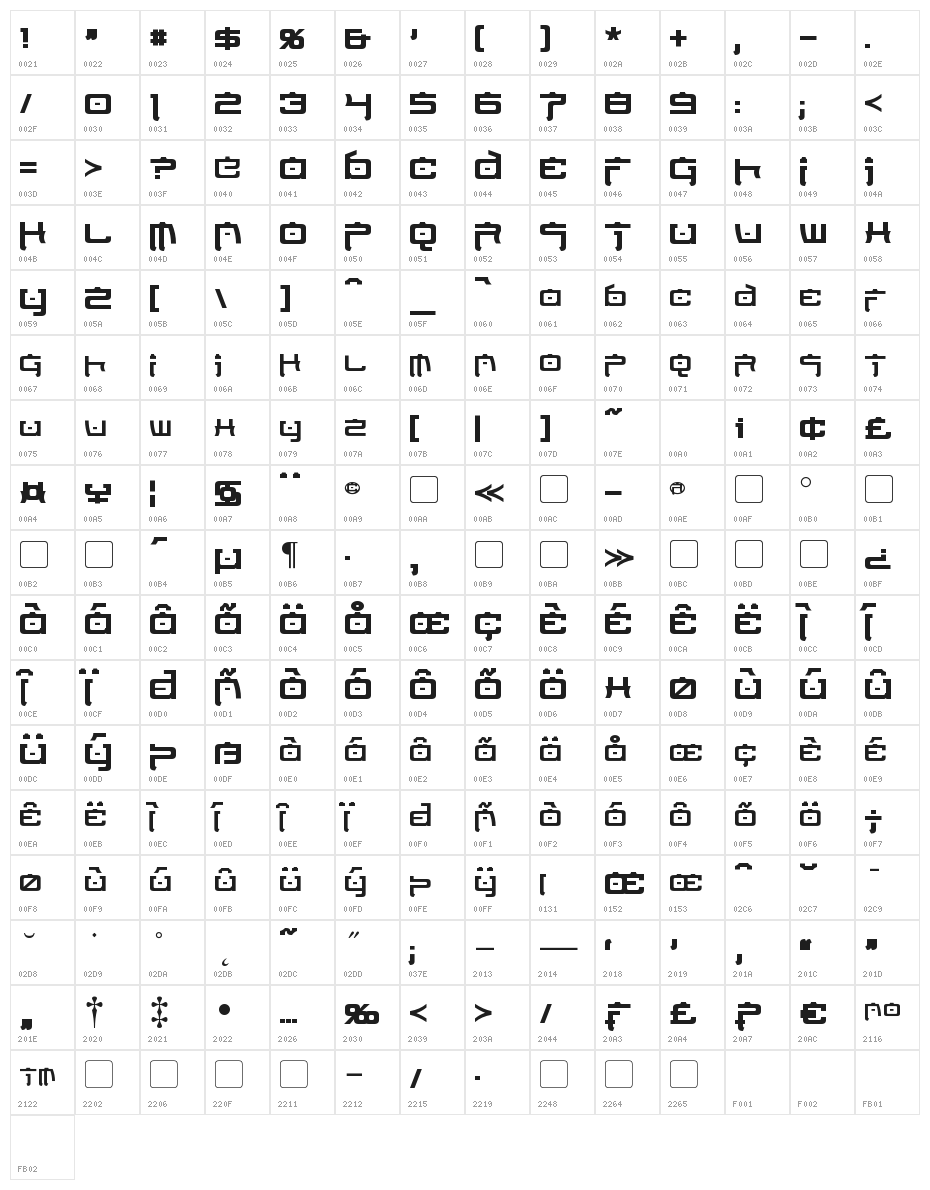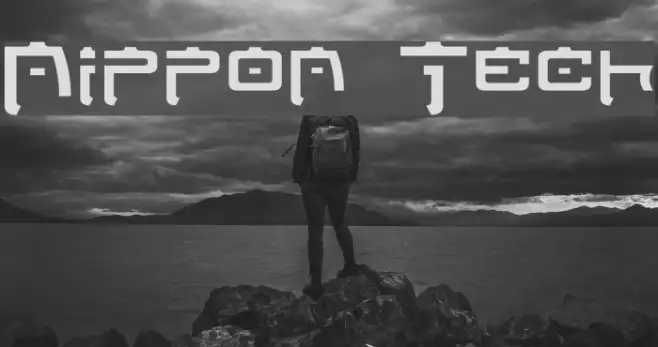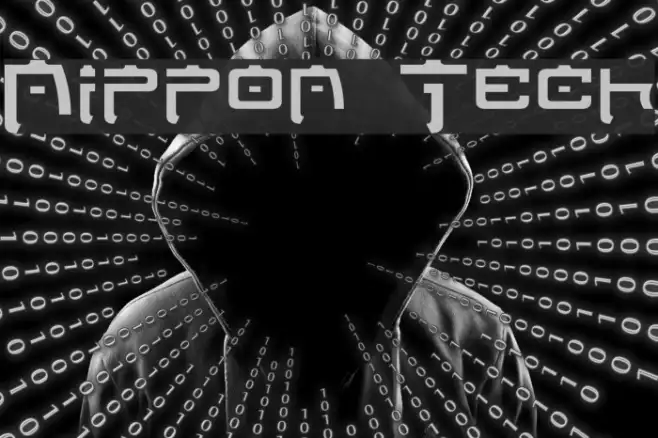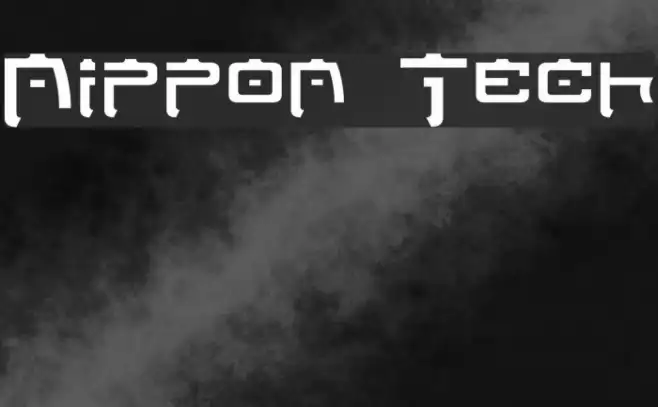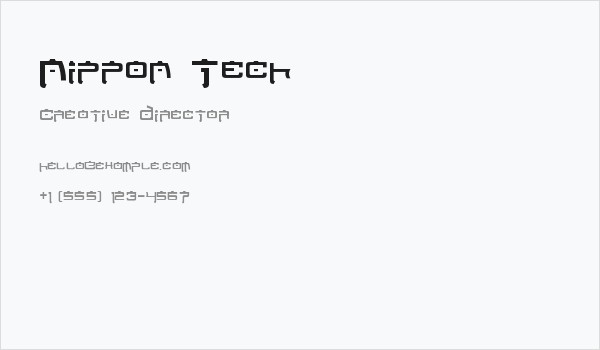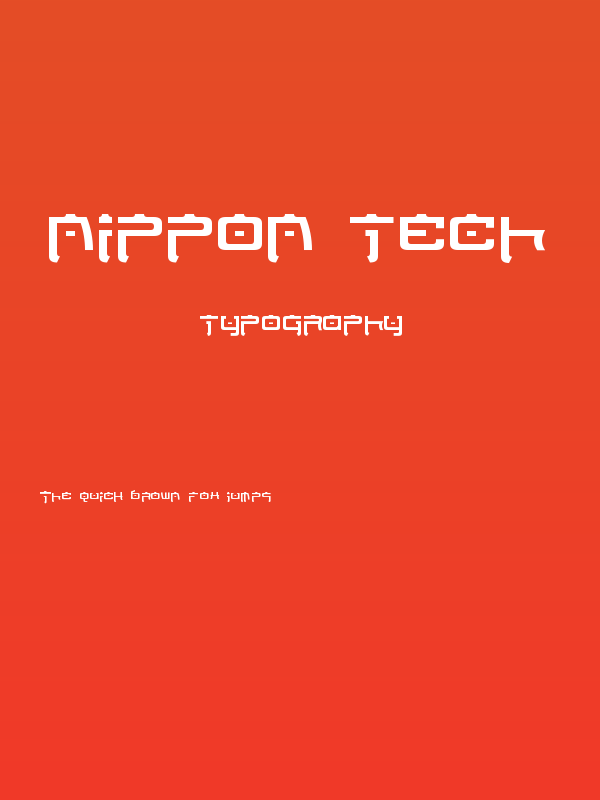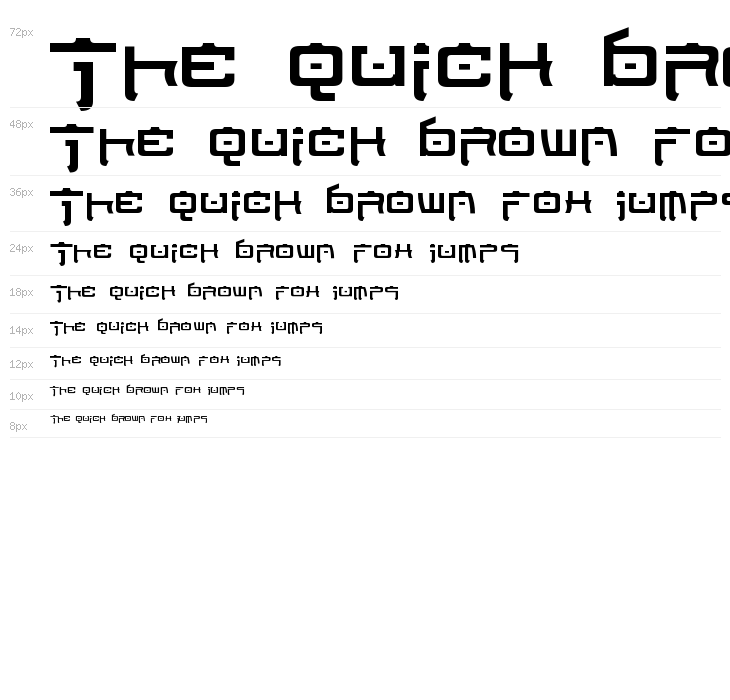
Nippon Tech Font
Nippon Tech Description
This font features a futuristic and tech-inspired design, characterized by its geometric and angular shapes. The letters are bold and have a strong presence, with a consistent stroke width that gives it a uniform appearance. The style is reminiscent of digital or sci-fi themes, making it suitable for projects that require a modern and cutting-edge look. The characters are well-spaced, allowing for readability while maintaining a compact form. The numerals and special characters follow the same design principles, ensuring a cohesive look across all elements.
| Proposed Projects | Ideal for technology branding, sci-fi movie posters, video game titles, and digital interfaces. |